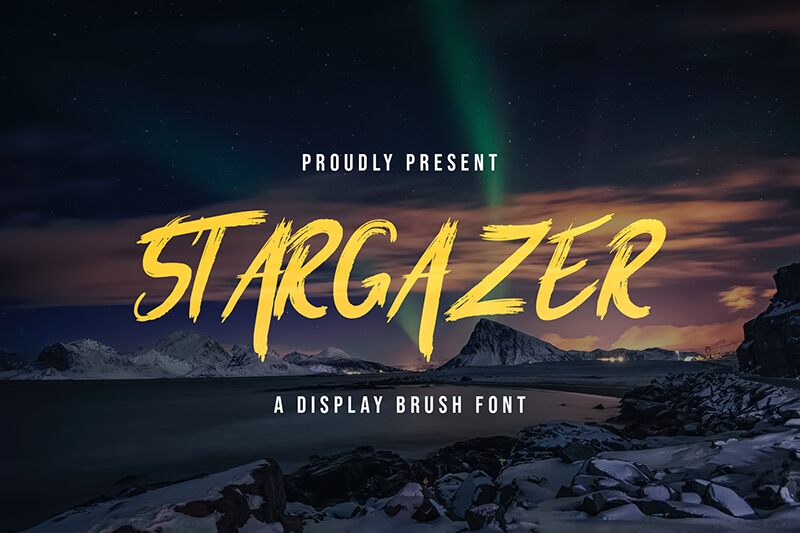
Stargazer is a stunning brush font designed by Graphiqa Studio. With its semi-bold weight, this font exudes a sense of confidence and sophistication that makes it perfect for a wide range of projects. Whether you're creating an eye-catching logo, designing an attention-grabbing poster, or crafting a stylish social media post, Stargazer is the perfect choice. Its bold strokes and elegant curves create a look that's both modern and classic, making it suitable for everything from fashion brands to tech startups. So why not give Stargazer a try and see how it can take your designs to the next level?
Stargazer